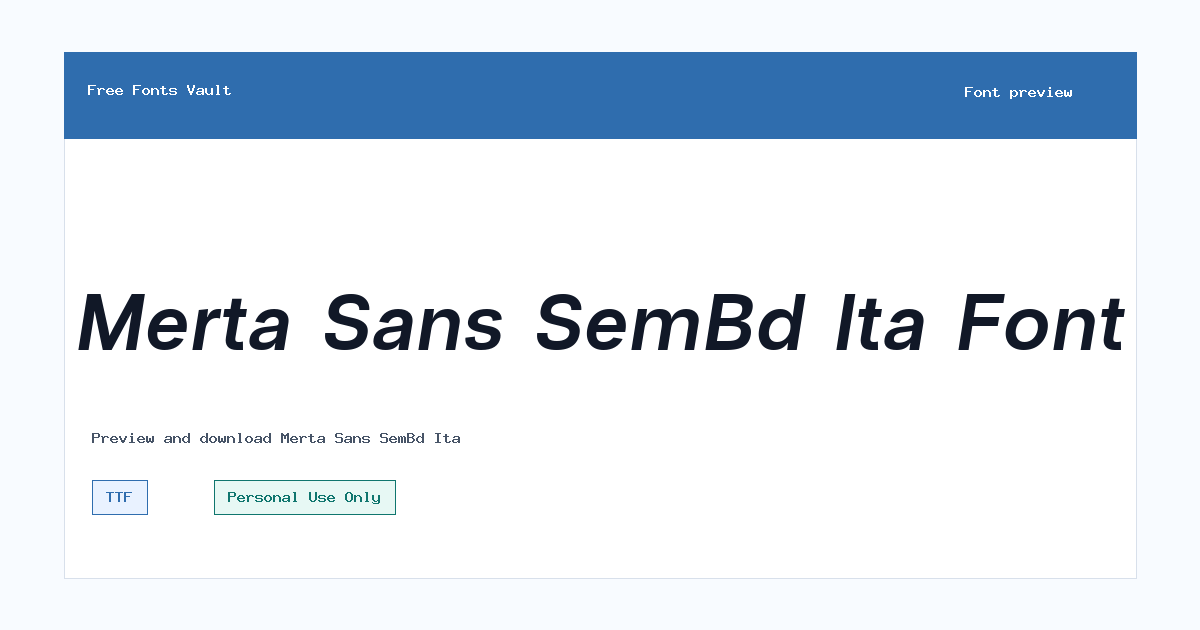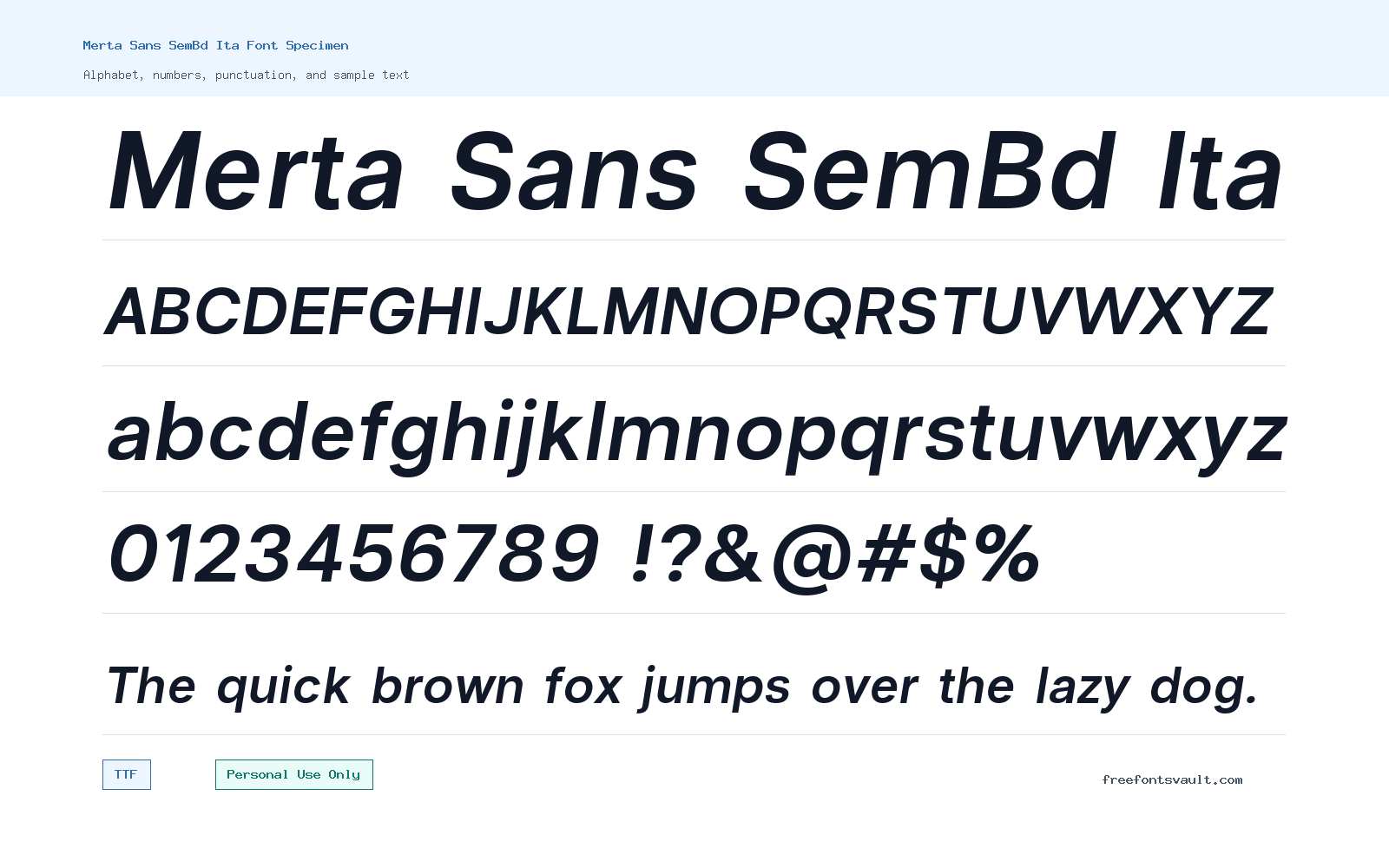
Merta Sans SemBd Ita
• Designer Diki Pradipta Tri Atmojo
• Foundry Lettertype Studio Co.
Merta Sans SemBd Ita is a semi-bold italic style from the Merta Sans Serif Font Family. It has the practical feel of a sans serif with the added movement of an italic cut, making it useful for short display text, emphasis, and polished design mockups.
About Merta Sans SemBd Ita
Merta Sans SemBd Ita sits in the middle-heavy range, with a 600 weight and an italic style. That combination gives the font more presence than a regular italic while keeping it lighter than a full bold display face. It is a good option when you want text to feel active or slightly refined without making it look too decorative. Because it is a sans serif, it can work well in clean layouts, especially where the italic angle is used for contrast rather than long reading.
• Semi-bold 600 weight with an italic style for stronger emphasis than a regular italic
• Sans serif family style with a clean structure for modern layouts
• Useful for short display text, headings, mockups, and accent typography
• Short headlines and subheadings
• Poster accents and event graphics
• Logo concepts and wordmark experiments
• Website or app mockups that need italic emphasis
• Social media quote cards and promotional drafts
• Packaging or label concepts for personal projects
• Typography studies and font pairing tests
For the best result, use Merta Sans SemBd Ita as an accent style rather than the only typeface in a full layout. Pair it with a regular upright sans serif for longer text, navigation, or descriptions, then reserve this semi-bold italic cut for emphasis. In posters or logo sketches, try wider tracking for uppercase words and slightly tighter spacing for short lowercase phrases. On web mockups, test the font at mobile sizes before relying on it for interface labels, because angled semi-bold text can feel crowded when space is tight. If you use it in a brand direction, keep a note to verify commercial licensing before delivery.
What kind of font is Merta Sans SemBd Ita?
It is a semi-bold italic style from the Merta Sans Serif Font Family. The available file is a TTF font with an italic style and 600 weight.
Is Merta Sans SemBd Ita good for posters?
Yes, it can work well for poster accents, short titles, date lines, or supporting headlines. Test your text in the preview first, especially if the poster uses all caps or very tight spacing.
What should I pair Merta Sans SemBd Ita with?
Pair it with a clean upright sans serif for paragraphs and interface text. Use the italic semi-bold style for emphasis, short calls to action, captions, or headings so the layout stays readable.